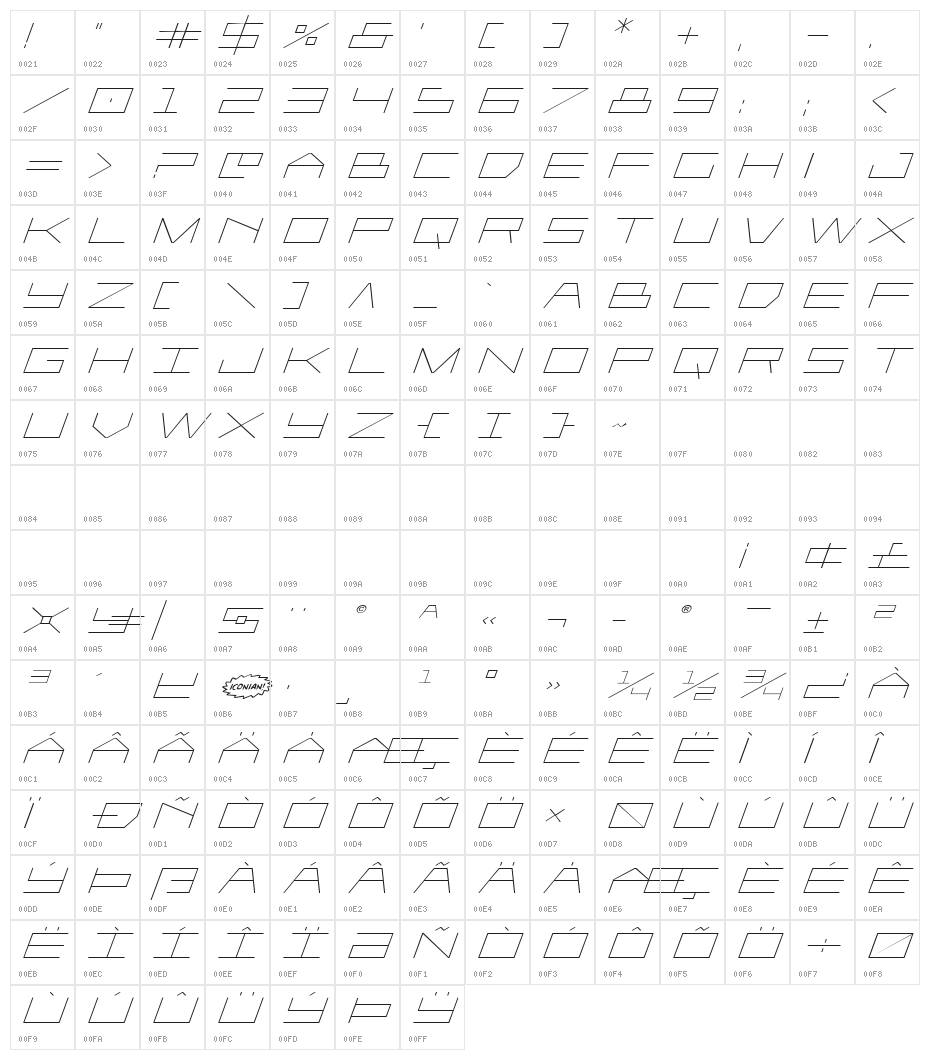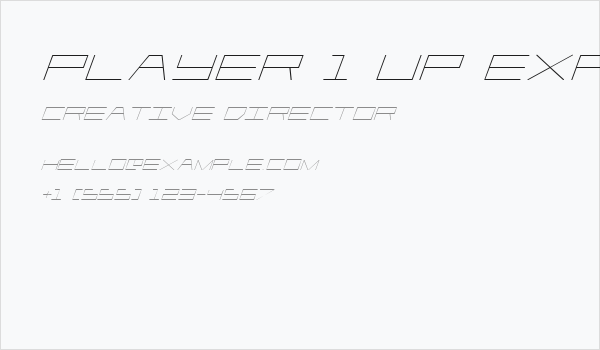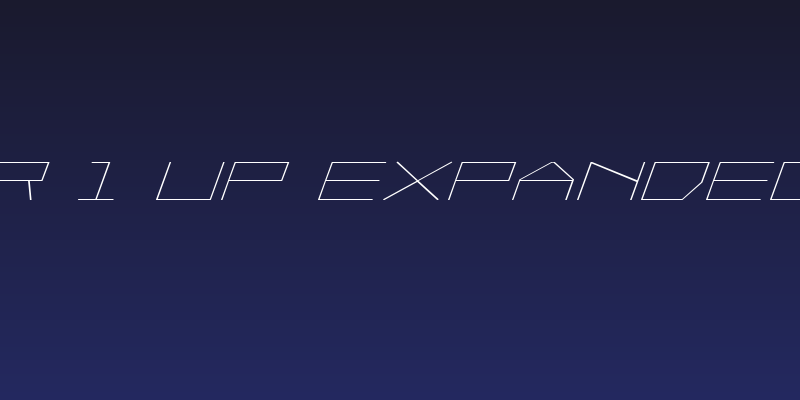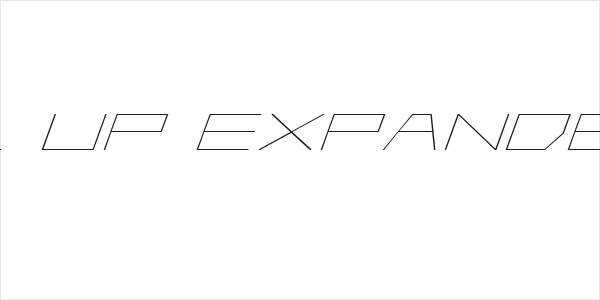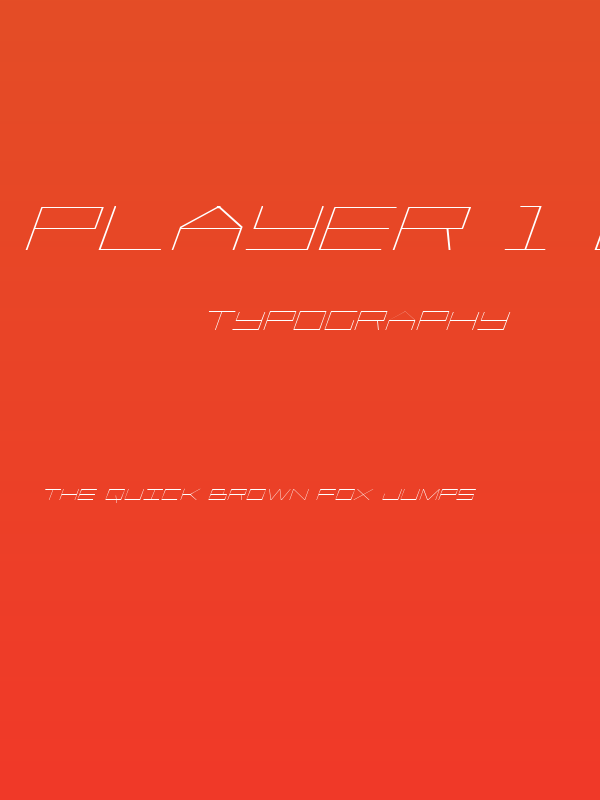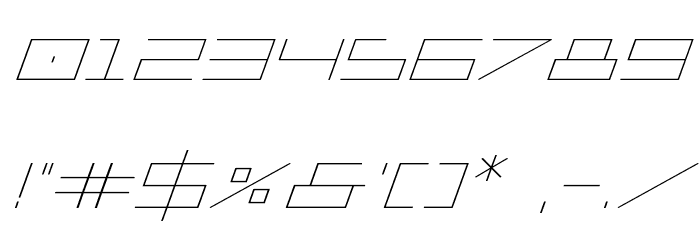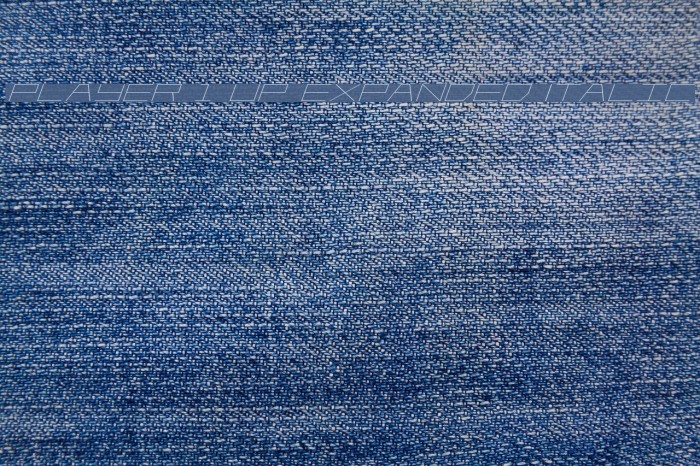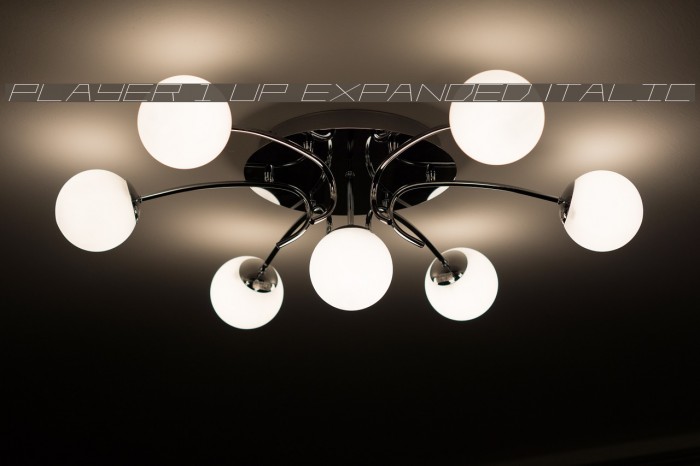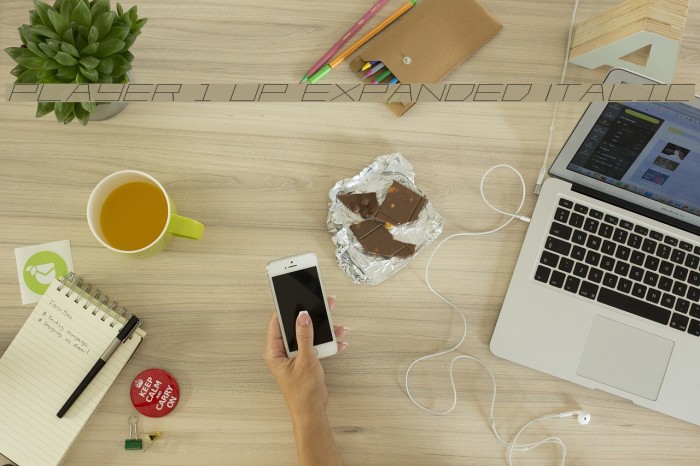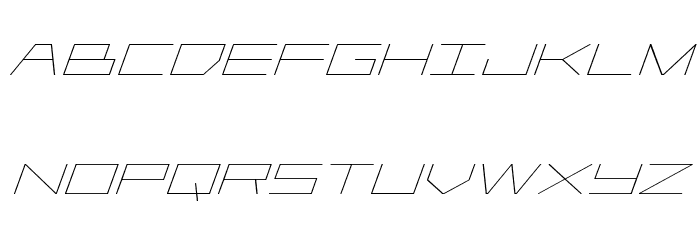
Player 1 Up Expanded Italic Font
Player 1 Up Expanded Italic Description
This font features a futuristic and geometric design with an expanded and italicized style. The characters are constructed with clean, straight lines and sharp angles, giving it a sleek and modern appearance. The uppercase and lowercase letters maintain a consistent height, while the numerals and special characters follow the same angular design. The overall look is reminiscent of digital or sci-fi themes, making it suitable for projects that require a modern and technical aesthetic.
| Proposed Projects | Ideal for video game titles, tech branding, sci-fi posters, and digital interfaces. |